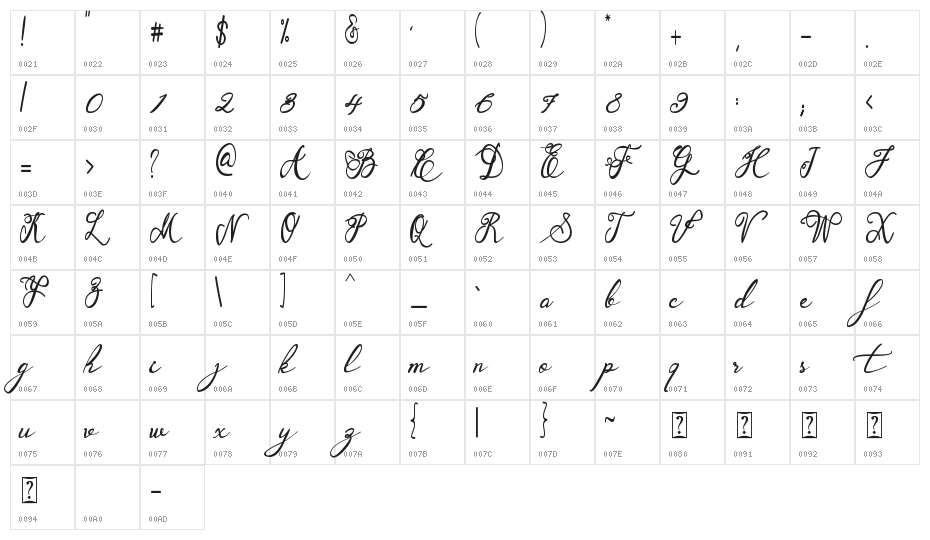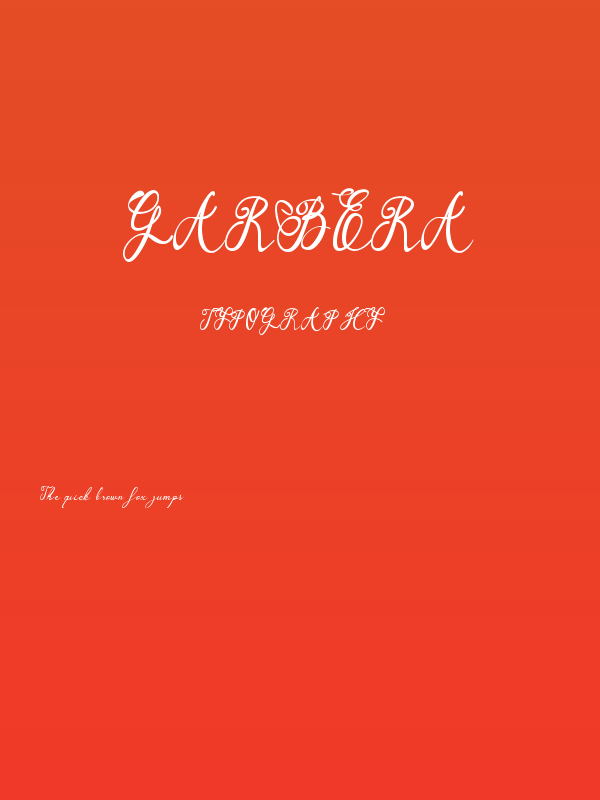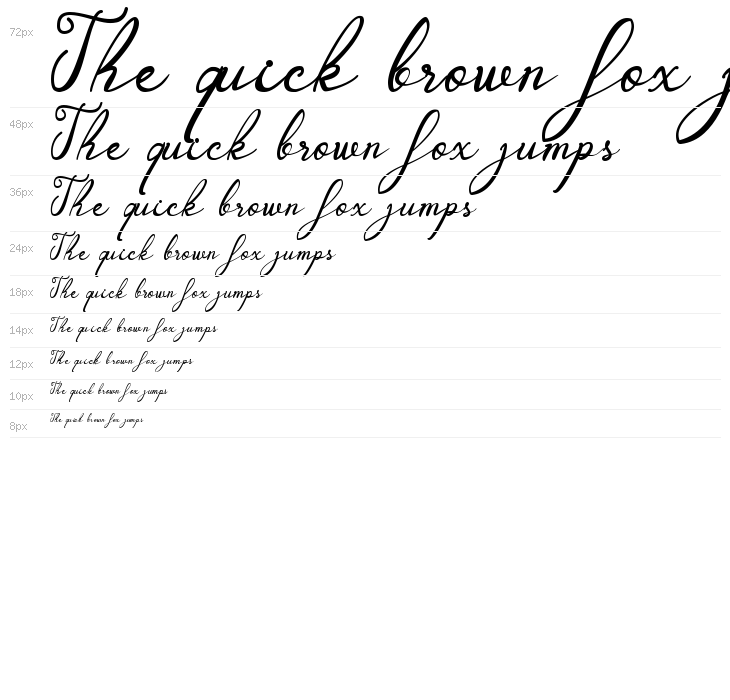
Garbera Font
Garbera Description
This elegant script font features a flowing, cursive style with intricate loops and swashes, giving it a sophisticated and artistic appearance. The uppercase letters are ornate and decorative, while the lowercase letters maintain a consistent fluidity, enhancing readability. The numerals and special characters are designed to complement the overall aesthetic, maintaining the same graceful curves and flourishes. This font exudes a sense of elegance and refinement, making it ideal for formal and decorative applications.
Use CaseHeadlines, Logos, Invitations
Proposed ProjectsIdeal for wedding invitations, greeting cards, elegant branding, and decorative headings.